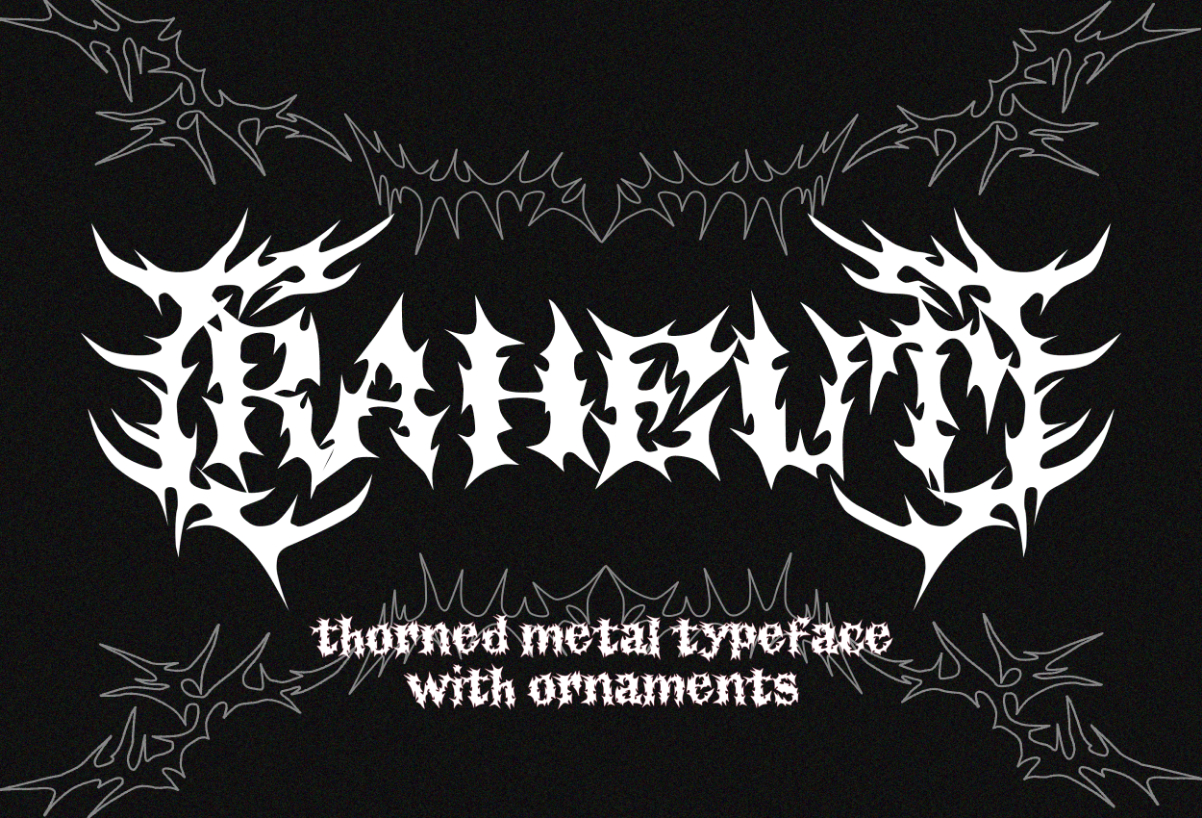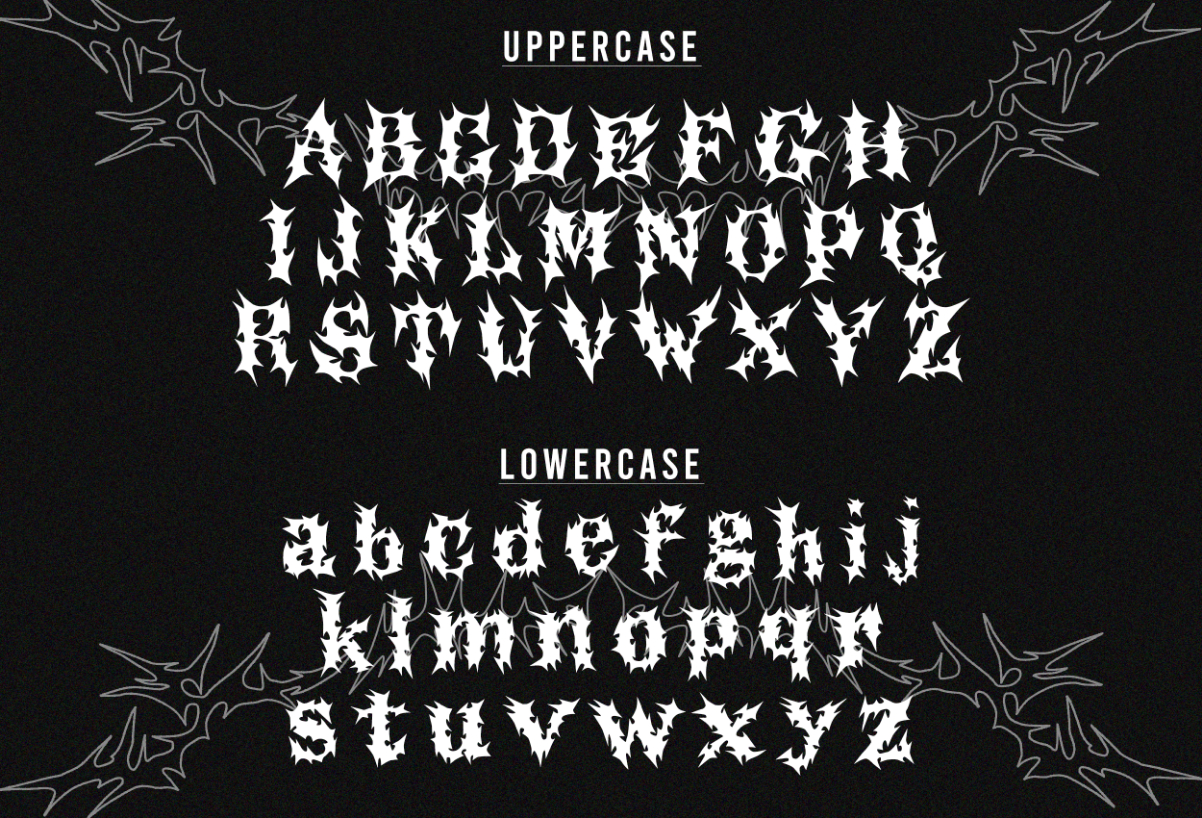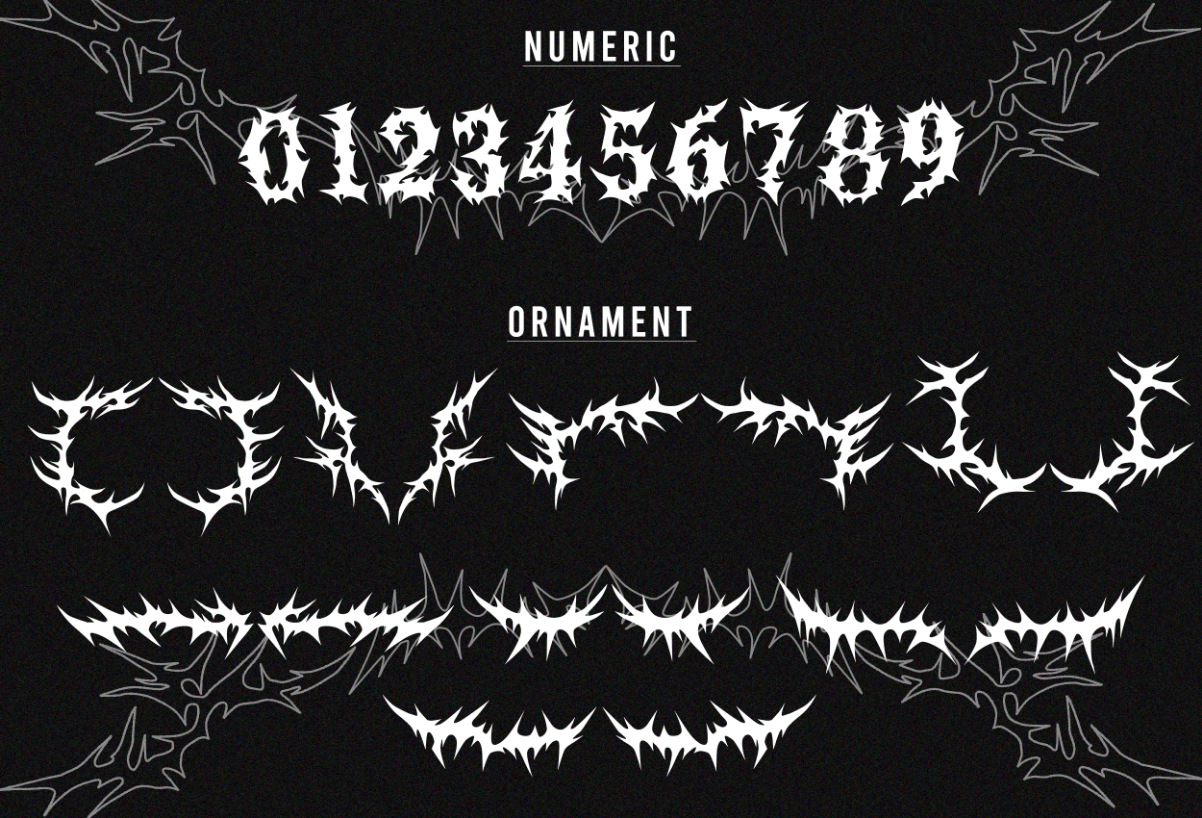
About Raheut Font
Unleash the bold and edgy vibe with “Raheut,” a metal thorn blackletter font that commands attention. Its sharp and intricate design brings a touch of mystique and strength to your projects. Perfect for adding a rugged and powerful aesthetic to logos, tattoos, or any design seeking a strong visual presence. Embrace the raw energy of Raheut for a distinctive and impactful blackletter experience.